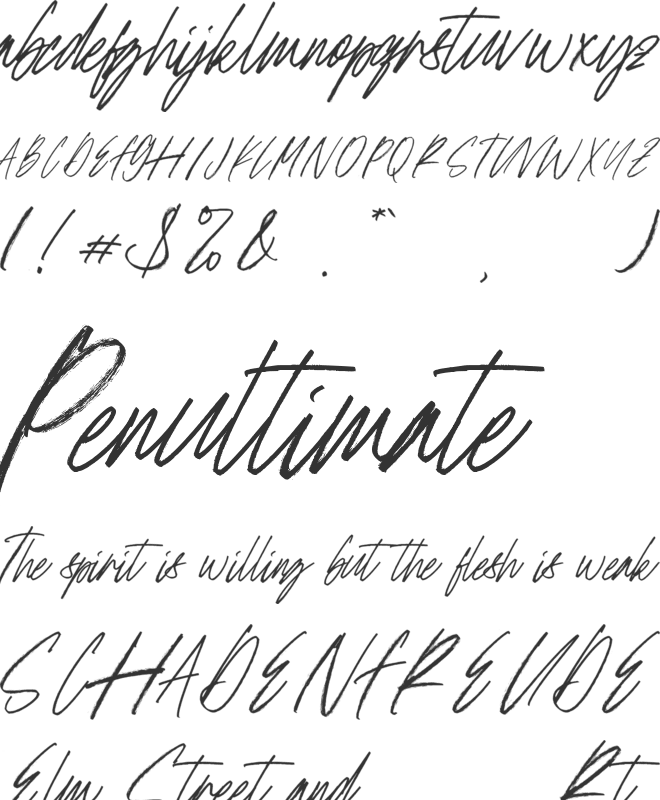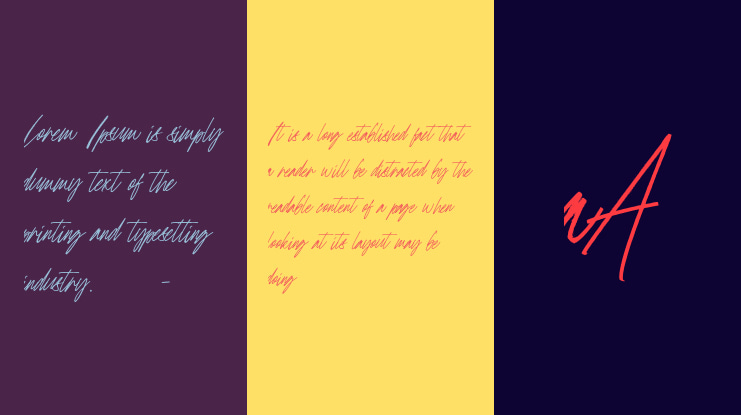
Last Friday Font
Last Friday is a stylish handwritten script font with a natural flow and emotional touch. It features smooth strokes and elegant ligatures that make your designs feel personal, warm, and expressive. Perfect for quotes, branding, social media posts, wedding designs, invitations, logos, and modern typography projects.